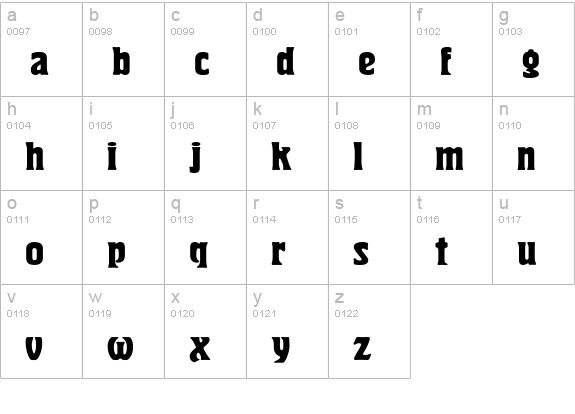
PT Herold Cyrillic is a stunning and elegant font that embodies the beauty and sophistication of Cyrillic script. With its intricate details and classic design, this font is perfect for adding a touch of style to any project. Whether you're working on a branding project, editorial design, or any creative endeavor, PT Herold Cyrillic is sure to make a statement. What's even better is that PT Herold Cyrillic is available for free download at FontsMarket.com. This means you can easily access this beautiful font and use it in your designs without any hassle. Make sure to grab your copy of PT Herold Cyrillic today and elevate your typography game to new heights!